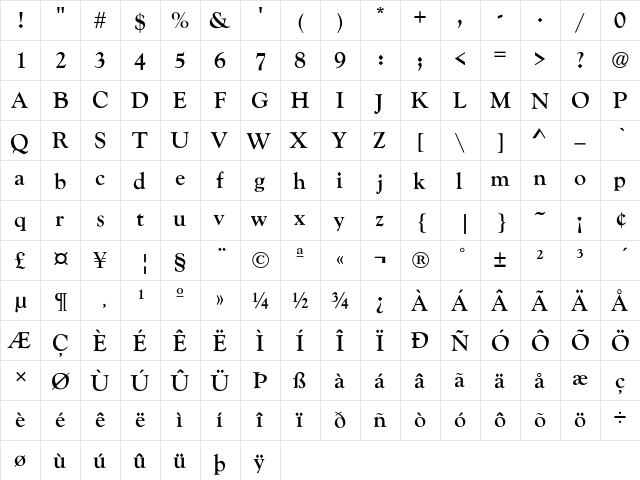
Goudy-Bold Regular
Design Context for Goudy-Bold Typeface
Goudy-Bold takes a measured approach to typography — its balanced proportions and neutral character make it a reliable workhorse for both digital and print work. Its bold stroke weight gives it real presence on the page.
Pro Tip: Use Goudy-Bold in both headline and body roles to test its range before committing to a single application.